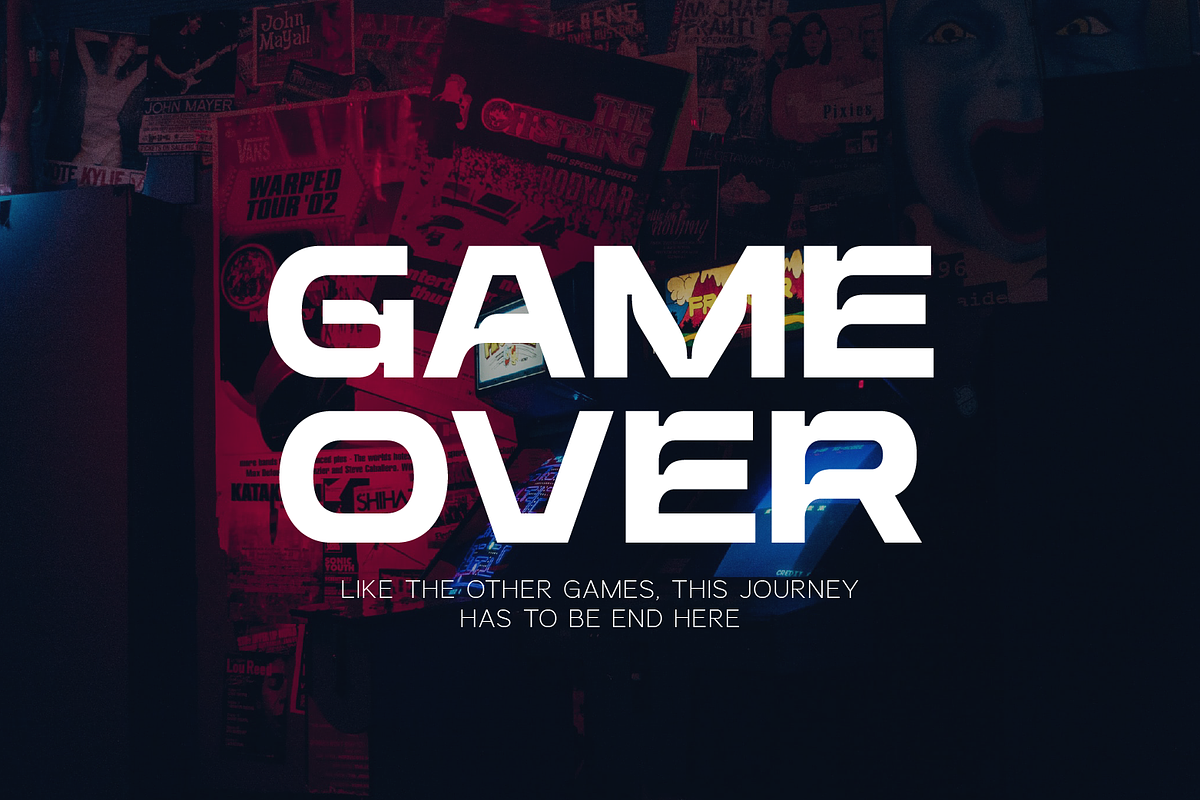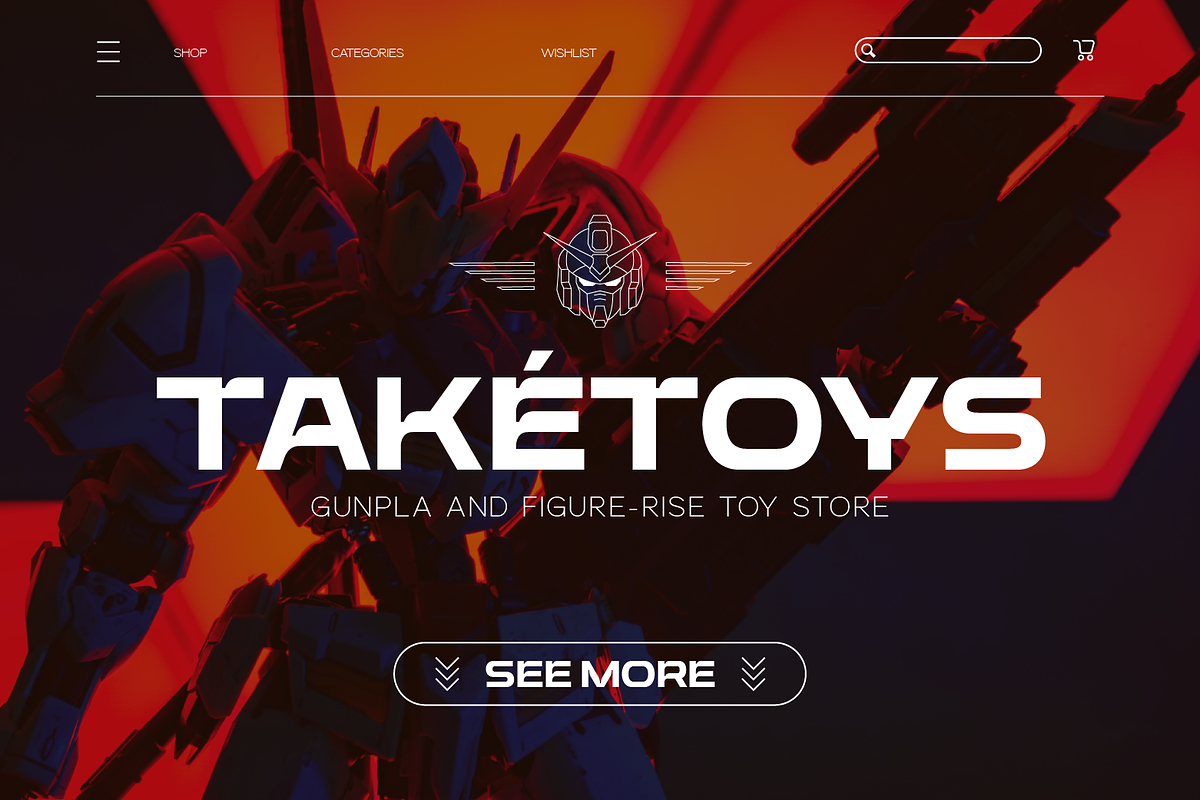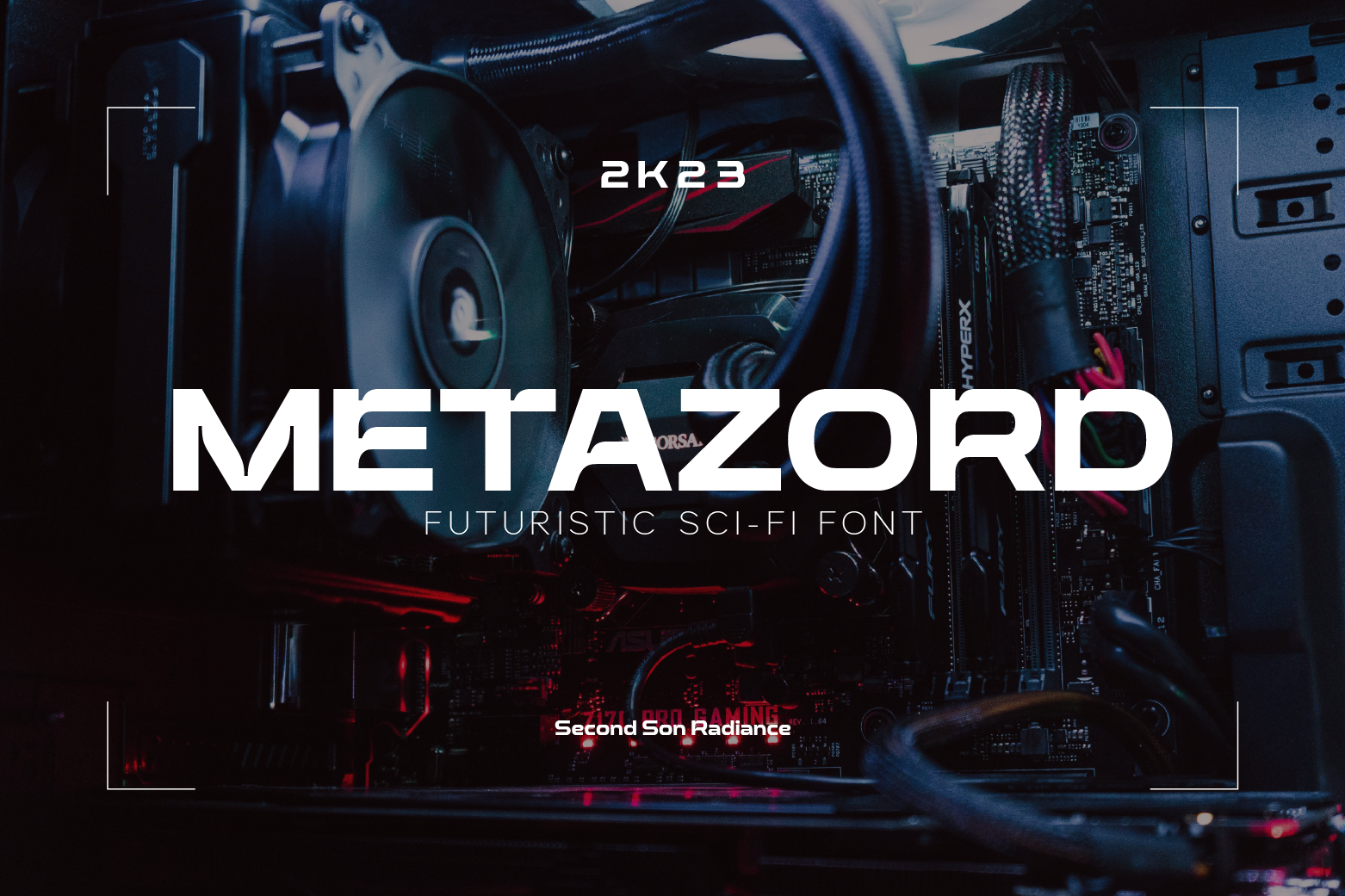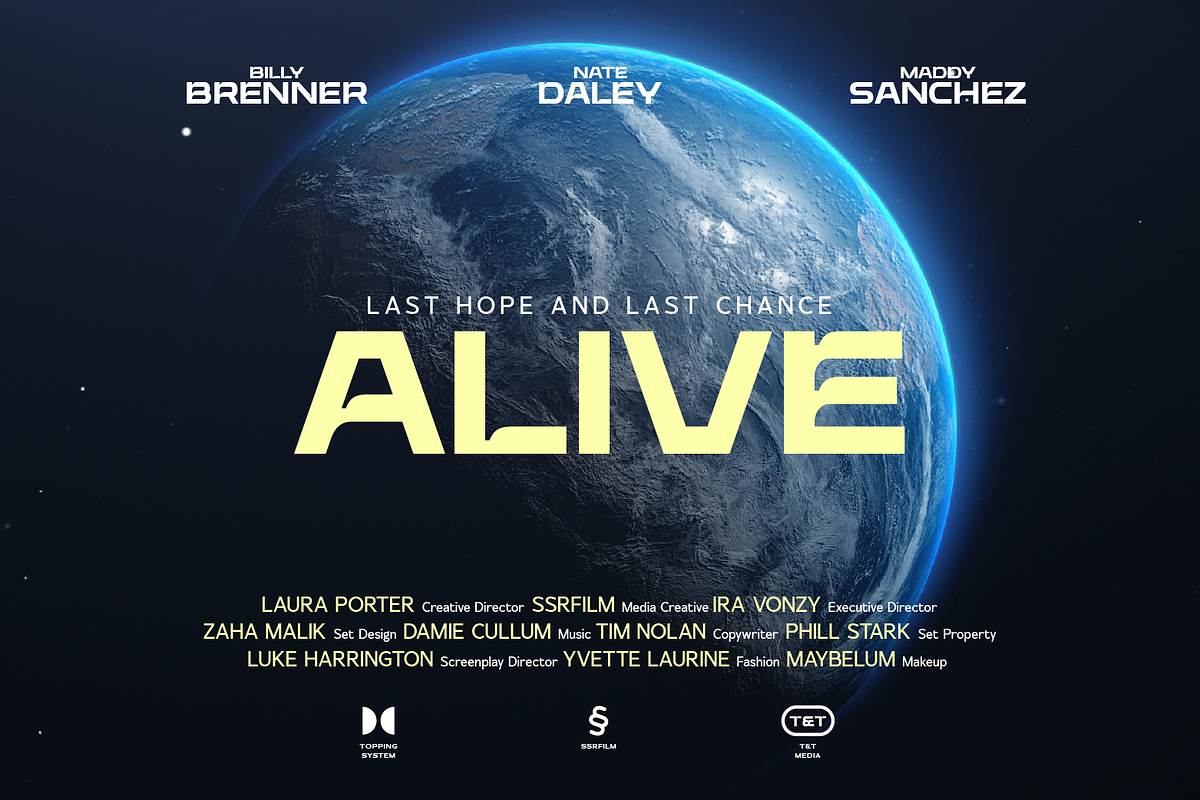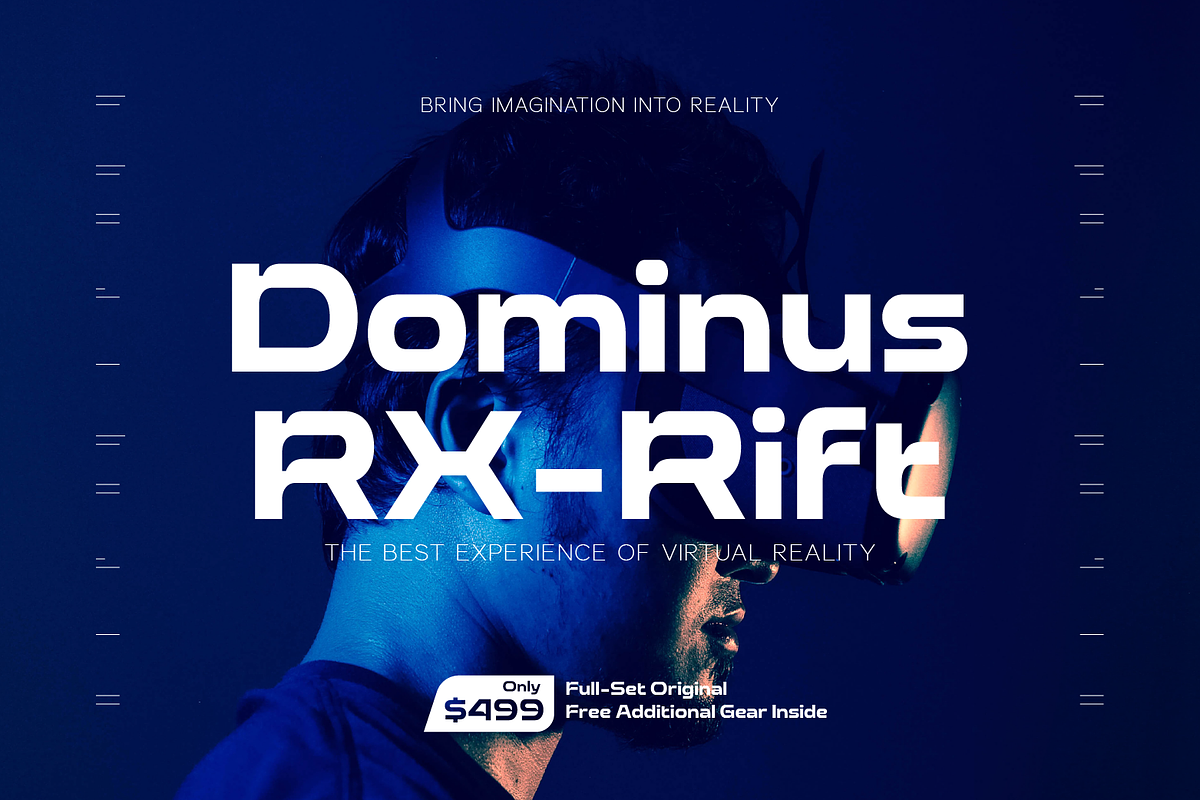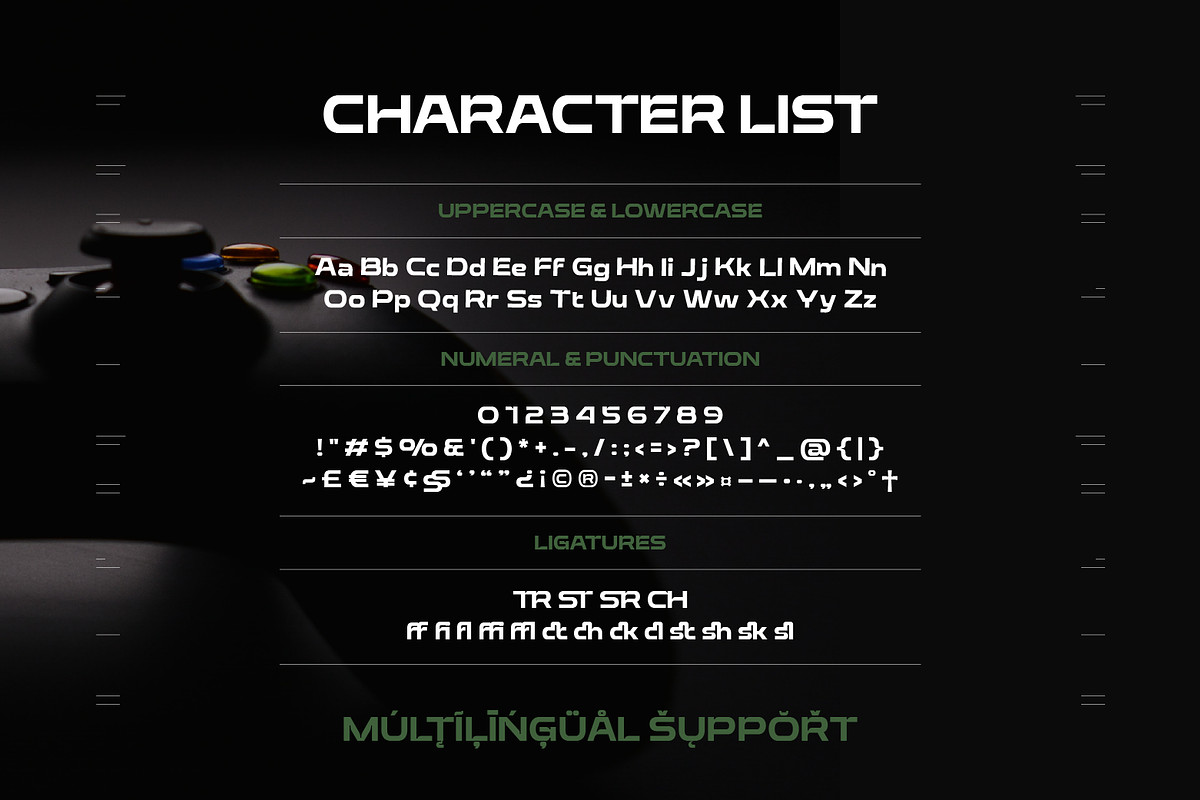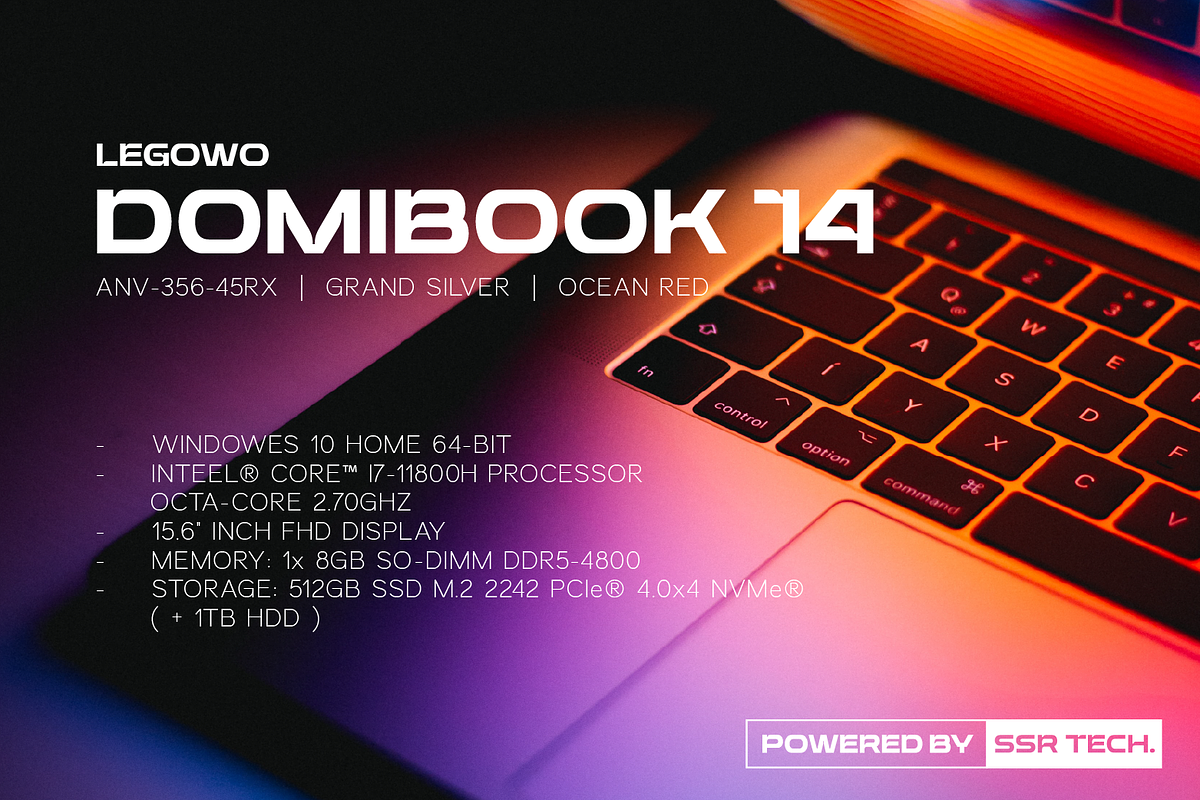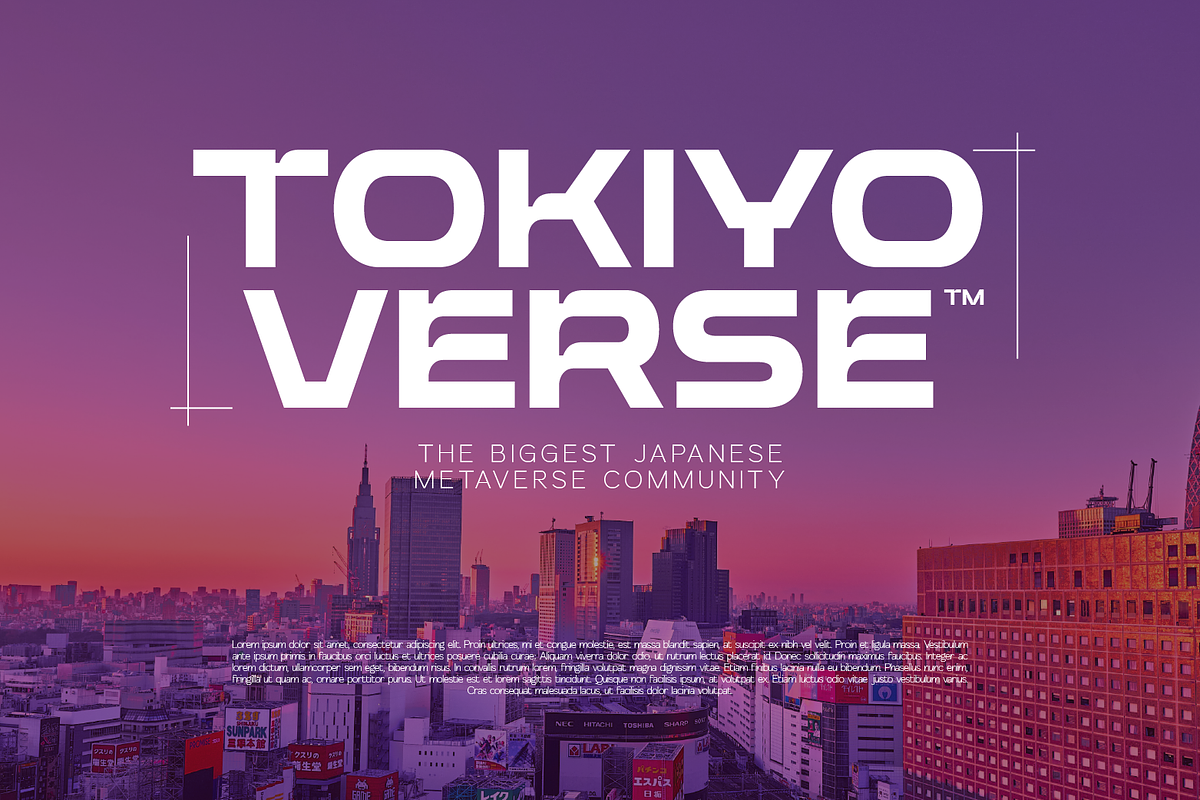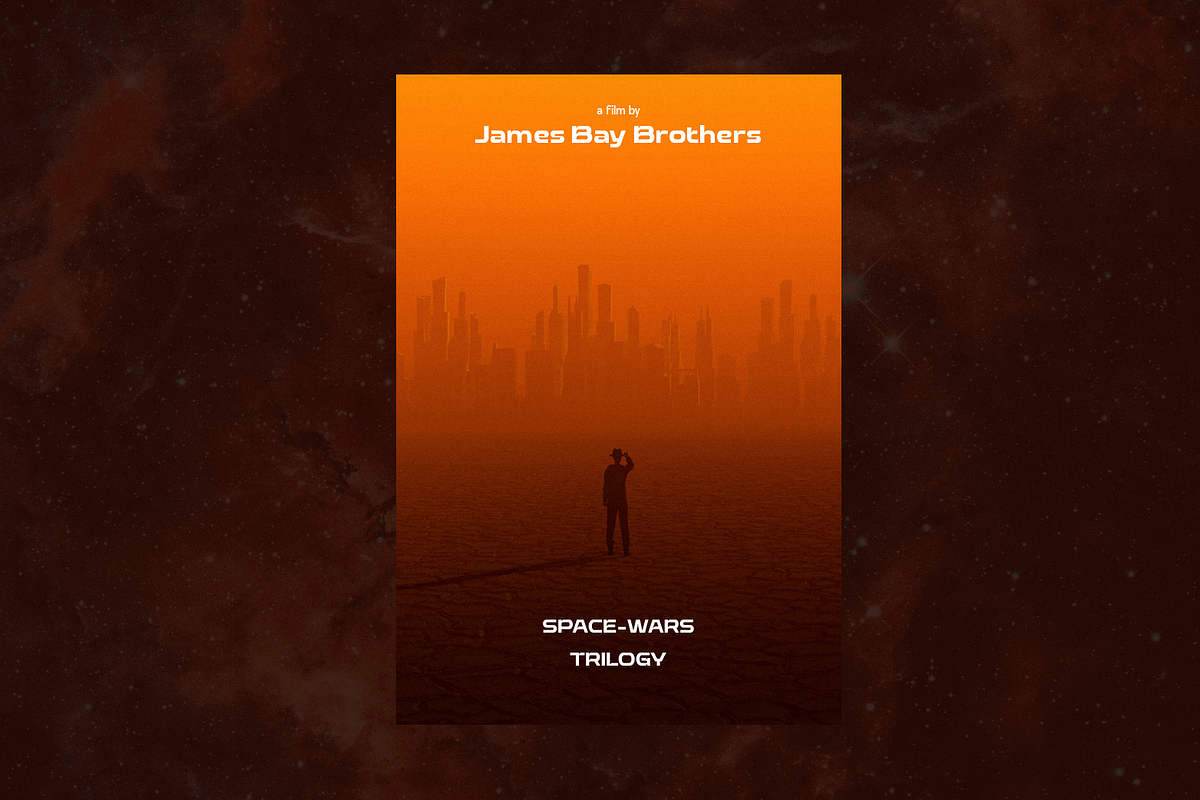
SS Metazord - Futuristic Font
Metazord Display Sans Serif - Futuristic Sci-Fi Font
Metazord Futuristic Sci-Fi Display Font is perfect for your up coming projects such as logo branding, editorial design, esport design, 80s retro design, gaming industry, music poster, website design, modern advertising design and so much more.